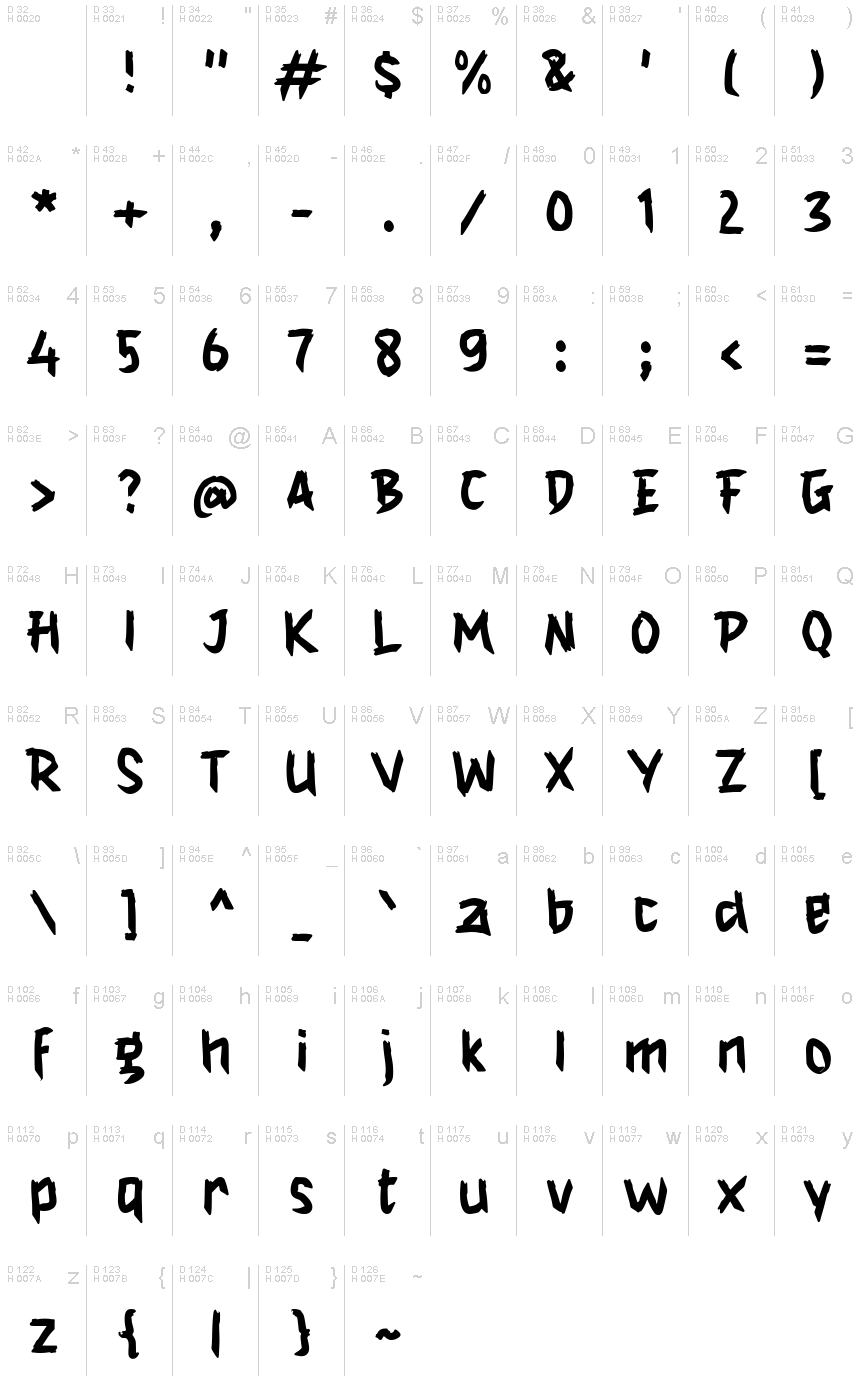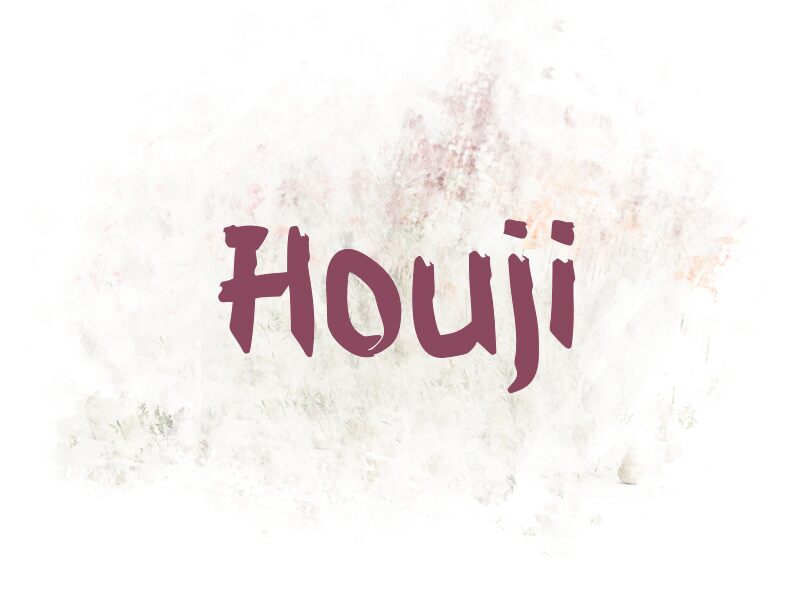
Houji
Houji font is an expressive design by wep that brings the beauty of Asian script to your projects. The artistic, spontaneous feel of each letter is accompanied by a casual yet stylish vibe. This free script font with a modern flair performs exceptionally in contemporary applications in branding and advertising.
Use Houji font in logos, social media posts, invitations, greeting cards, decorations, motivational quotes, packaging designs, magazines, book covers and titles.